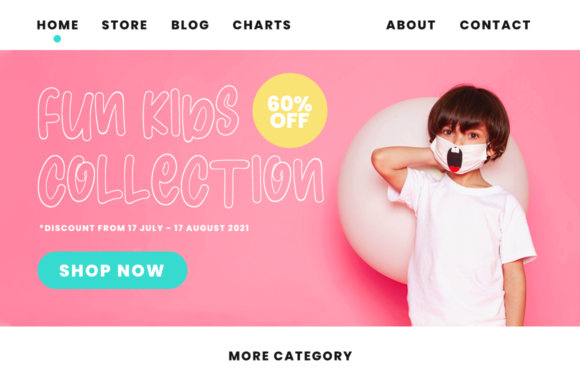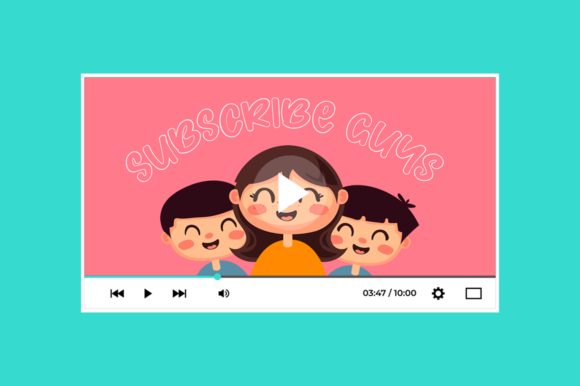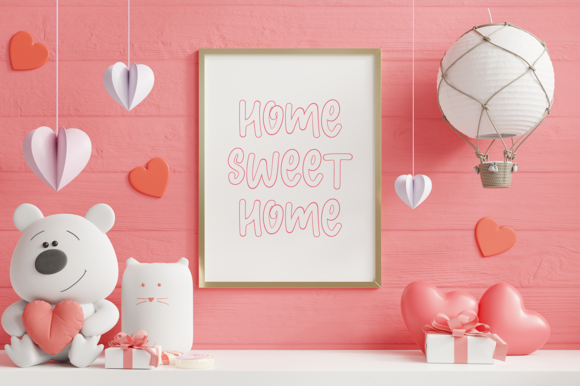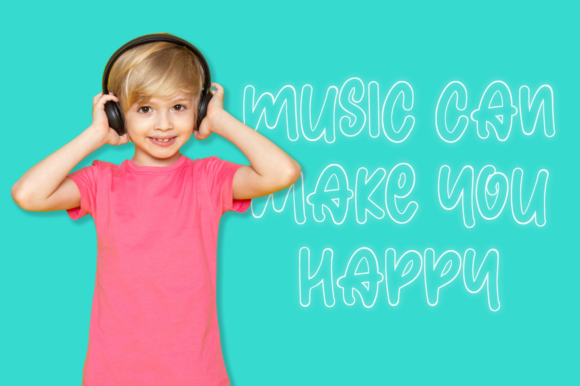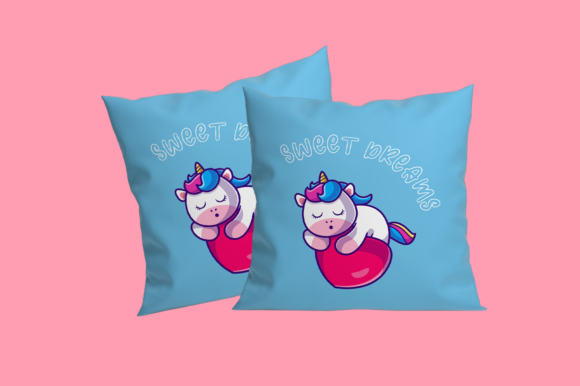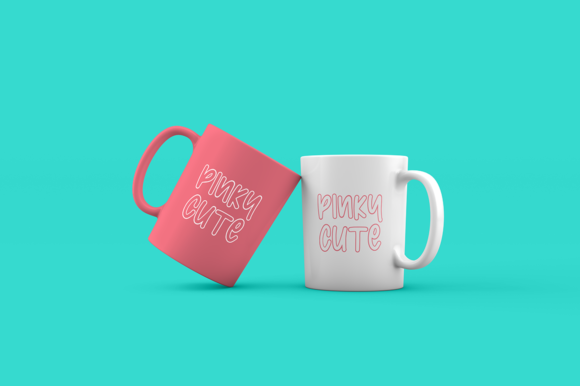
The Ultimate Guide to Funline Font: Adding a Fun and Friendly Touch to Your Designs
I’ll never forget the time I was working on a project for a client’s children’s party invitation. I had the design concept all sorted out, but I was struggling to find the perfect font to match the playful and fun vibe of the event. That’s when I stumbled upon Funline Font, a cool and casual outlined display font that instantly caught my attention. In this article, I’ll share my experience with Funline Font, its features, and how to make the most out of it in your designs.
An Honest Review of Funline Font
So, what makes Funline Font special? Here are some things I love about it:
- ✨ Adaptable and versatile: Funline Font can be used on a variety of design ideas, from party invitations to social media graphics, and even branding materials.
- ✅ Fun and friendly touch: The outlined design and casual feel of Funline Font add a playful and approachable vibe to any project.
- 💡 Easy to read: Despite being an outlined font, Funline Font remains clear and easy to read, even at smaller sizes.
While Funline Font is an excellent choice for many projects, there are a few quirks to keep in mind:
- 🤔 Limited use in formal designs: Due to its casual and playful nature, Funline Font might not be the best fit for formal or professional designs, such as business reports or corporate branding.
- ⚠️ Requires careful color selection: As with any outlined font, it’s essential to choose colors that provide sufficient contrast to ensure the text remains readable.
The Story Behind Funline Font
Funline Font was designed with the intention of creating a fun and friendly font that could be used in a variety of design projects. The designer aimed to craft a font that was both playful and approachable, making it perfect for designs that require a personal touch. While the actual design process and inspiration behind Funline Font might be unknown, it’s clear that the font has been carefully crafted to meet the needs of designers and crafters.
| Font Name | Funline Font |
| Author | FatmaStudio |
Q: What type of projects is Funline Font best suited for?
A: Funline Font is perfect for projects that require a fun and friendly touch, such as party invitations, social media graphics, and branding materials.
Q: Is Funline Font suitable for body text?
A: While Funline Font is clear and easy to read, it’s primarily designed for display purposes. For body text, you may want to choose a font that’s more optimized for reading.